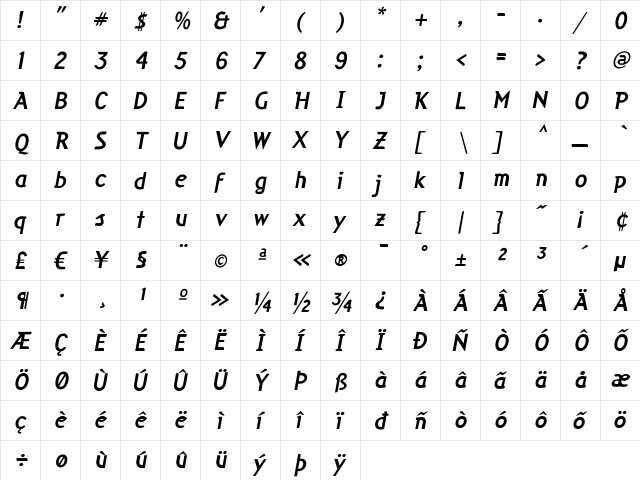
Cuban Regular
Design Context for Cuban Typeface
Cuban takes a measured approach to typography — its balanced proportions and neutral character make it a reliable workhorse for both digital and print work.
Pro Tip: Use Cuban in both headline and body roles to test its range before committing to a single application.